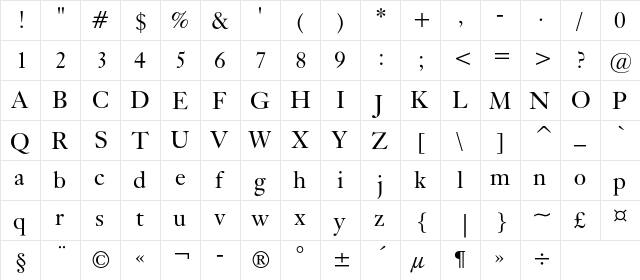
KisC BT Regular
Design Context for KisC BT Typeface
KisC BT is a composed and adaptable typeface that performs quietly and consistently across a wide range of design contexts.